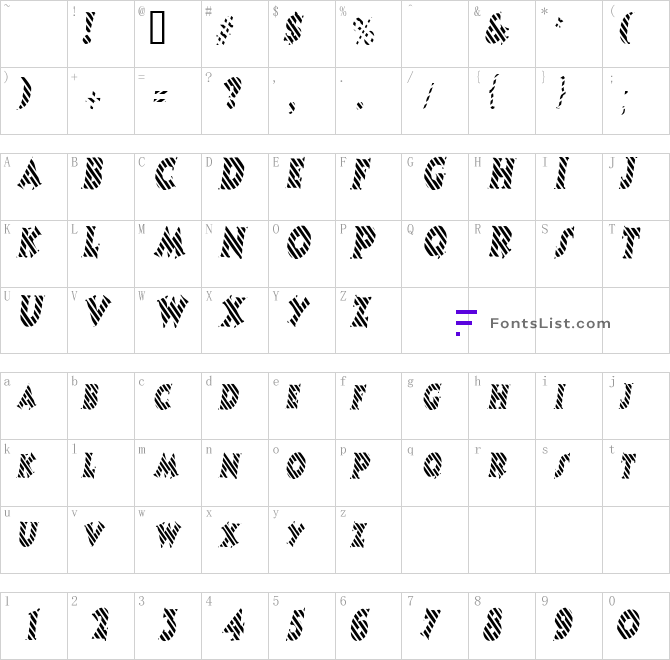
- Font Name:CandyStripeCondensed
CandyStripeCondensed-Oblique.ttf is a very beautiful artistic font, CandyStripeCondensed-Oblique.ttf is widely used in the design and printing of various books and pictures,CandyStripeCondensed-Oblique.ttf has a strong visual impact,CandyStripeCondensed-Oblique.ttf is a commonly used font in newspapers, magazines and books, and is used in posters, e-commerce Poster design, store design, logo design, font design and other fields.CandyStripeCondensed-Oblique.